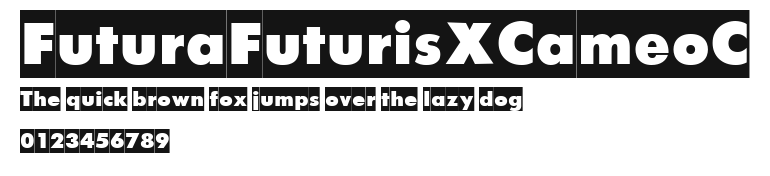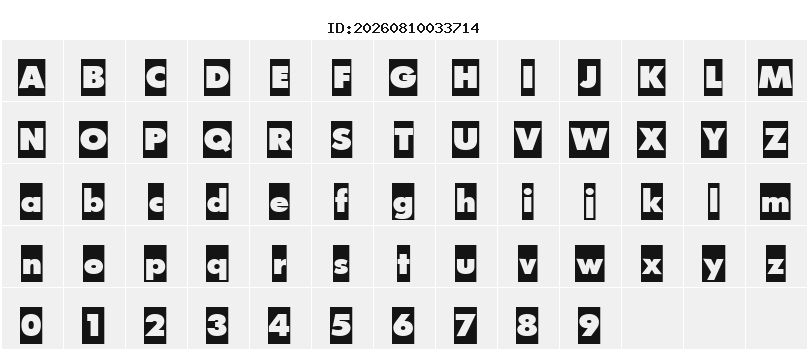
FuturaFuturisXCameoC Preview
• Font Name: FuturaFuturisXCameoC
• Full Font Name: PT FuturaFuturis Black Cameo Cyrillic
• PostScript Name: FuturaFuturisXCameoC
About FuturaFuturisXCameoC.ttf
FuturaFuturisXCameoC.ttf is a modern, elegant sans-serif font designed for ultimate readability and visual harmony. Perfect for branding, headlines, web design, and print materials.